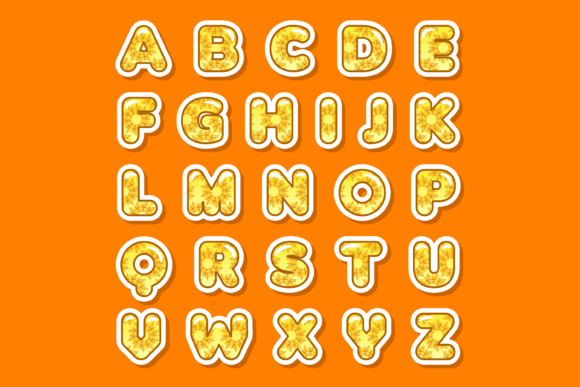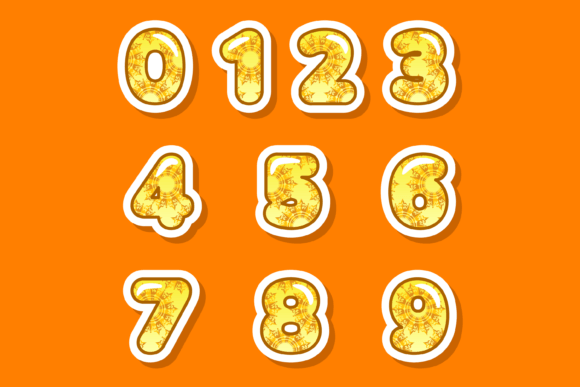
Introducing Crown Font: Elevate Your Designs with Regal Elegance
Are you on the hunt for a font that adds a touch of luxury and sophistication to your designs? Look no further than Crown Font, an incredibly cool color font designed in the style of Diadem. This stunning font is perfect for designers, crafters, and DIY enthusiasts who want to take their creations to the next level.
What Makes Crown Font So Special?
Crown Font is a color font (Opentype-SVG) that boasts a unique and regal design. Its elegant style is reminiscent of the iconic Diadem font, but with a fresh and modern twist. Whether you’re working on custom designs, DIY crafts, or any other project that requires a lovely touch, Crown Font is an amazing choice.
With Crown Font, the design possibilities are endless. Here are just a few ideas to get you started:
Tips for Getting the Most Out of Crown Font
To help you get started with Crown Font, here are a few tips and tricks:
- Experiment with different colors and textures to make your designs truly unique
- Pair Crown Font with other fonts to create stunning contrast and visual interest
- Use the font to add a touch of elegance to your designs, or to create bold and eye-catching statements
Why Choose Crown Font?
So why choose Crown Font over other fonts on the market? Here are just a few reasons:
- Unique and regal design that’s sure to turn heads
- High-quality, color font (Opentype-SVG) for maximum versatility
- Easy to use and customize, even for beginners